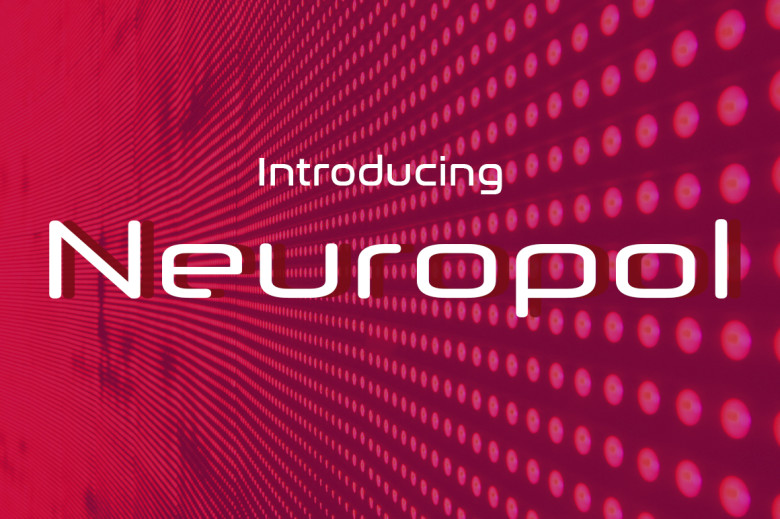
Neuropol Font
Neuropol is a wide, starkly futuristic typeface released in 1996. The basis of the plan are rounded squares which were common in techno fonts from an earlier age, and super-elliptical stroke ends gives Neuropol a harmonized look.